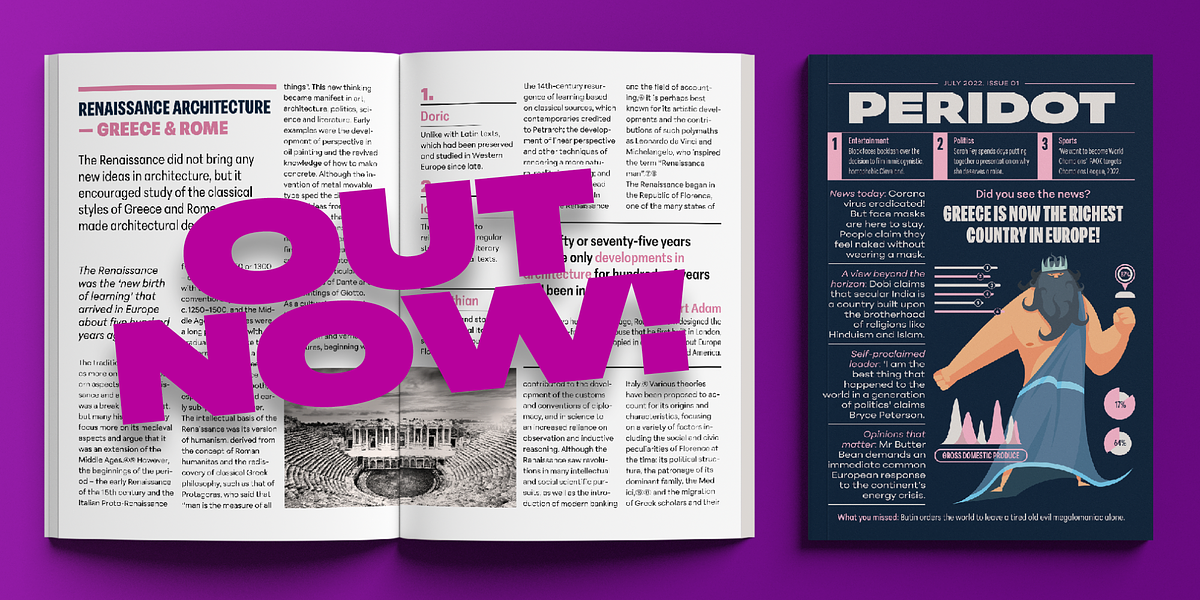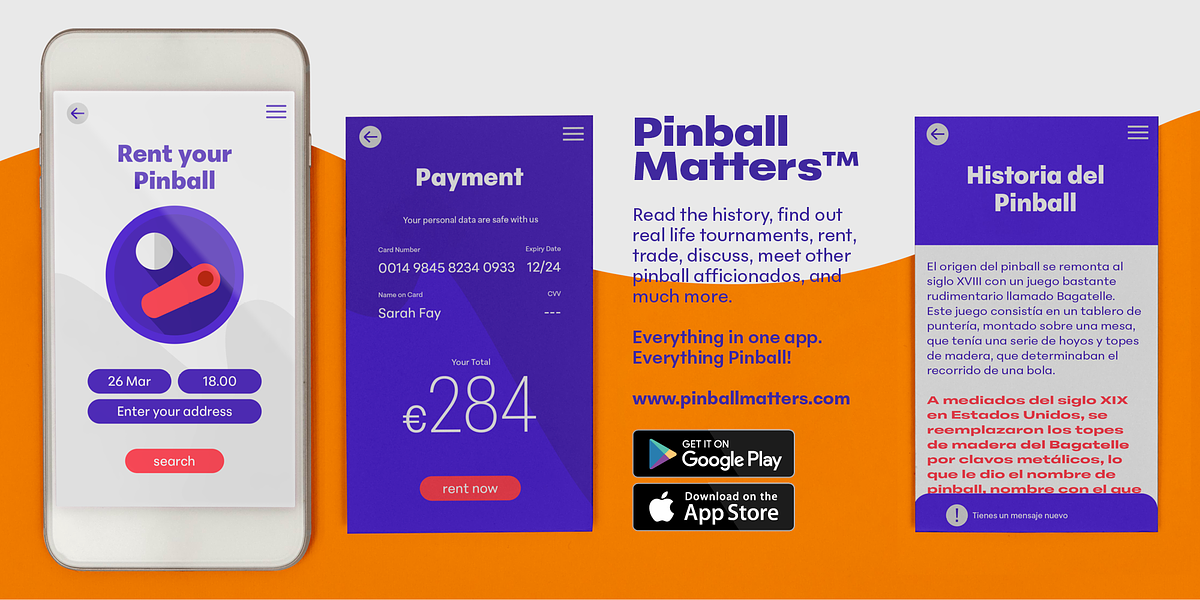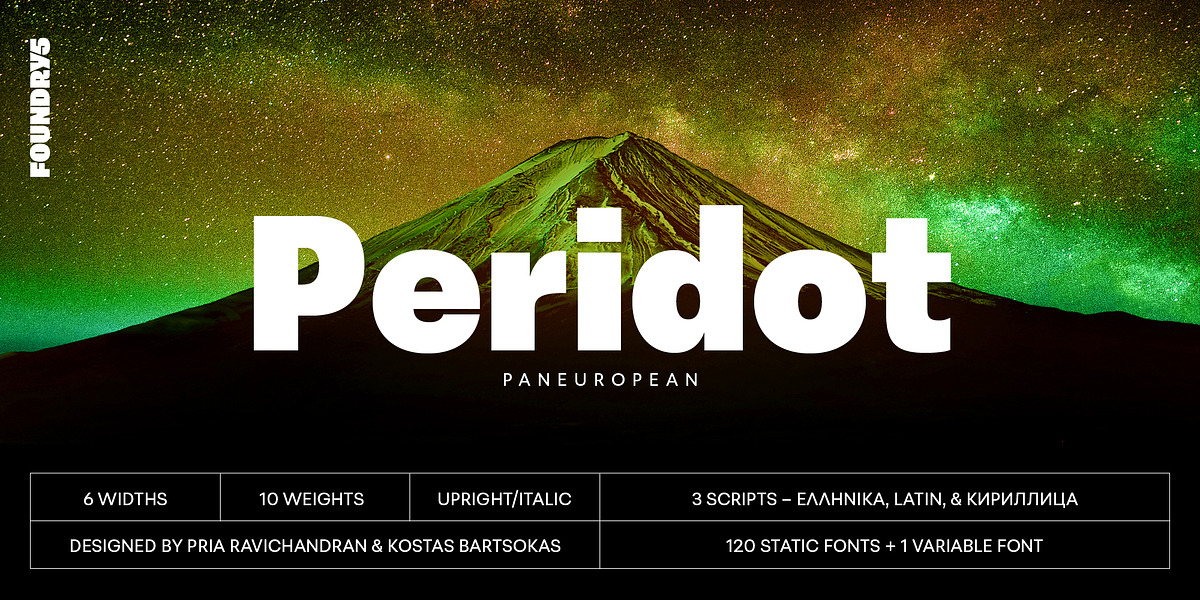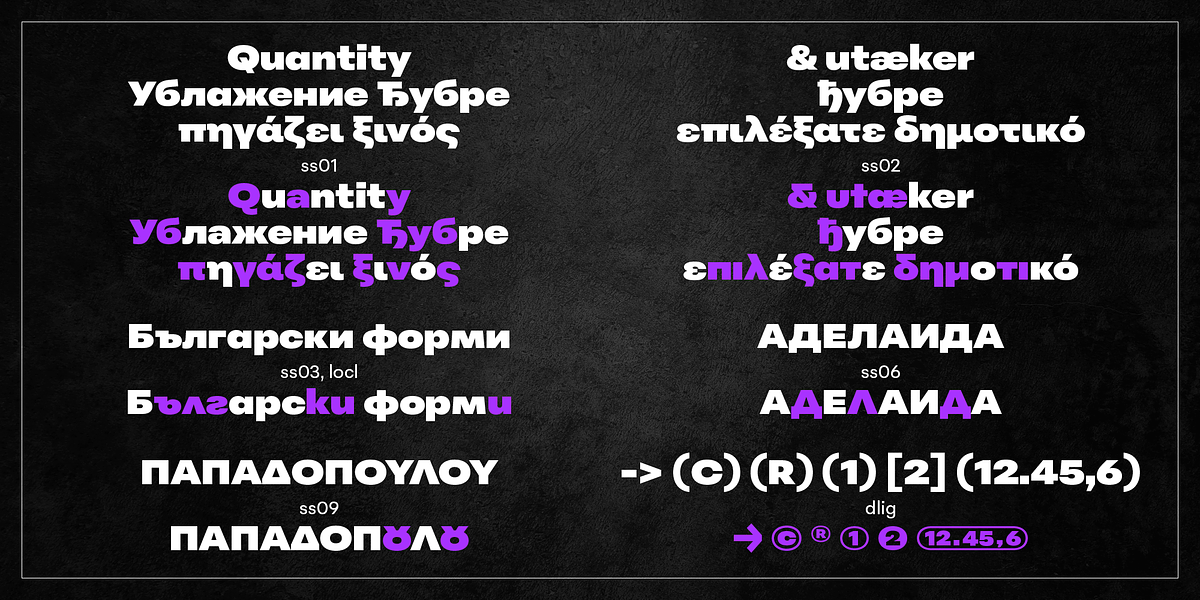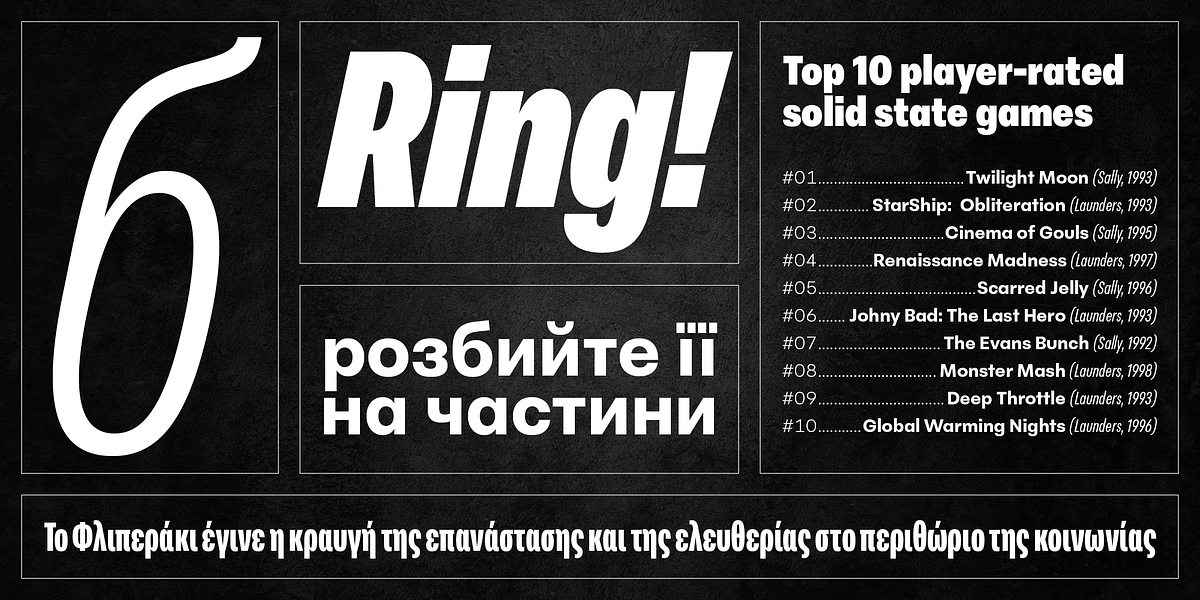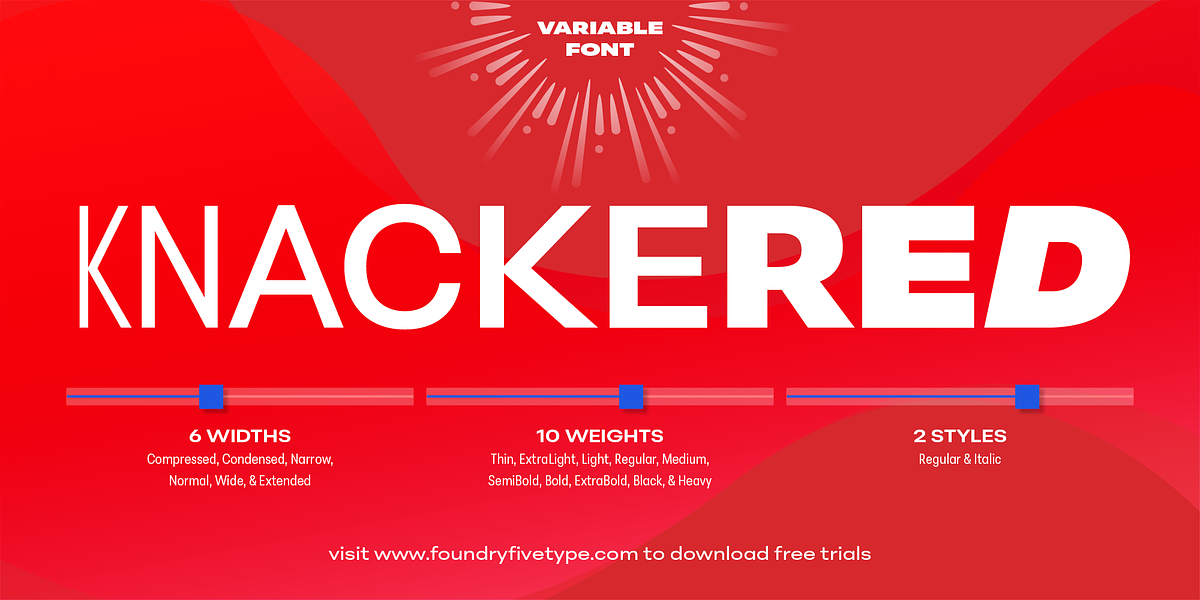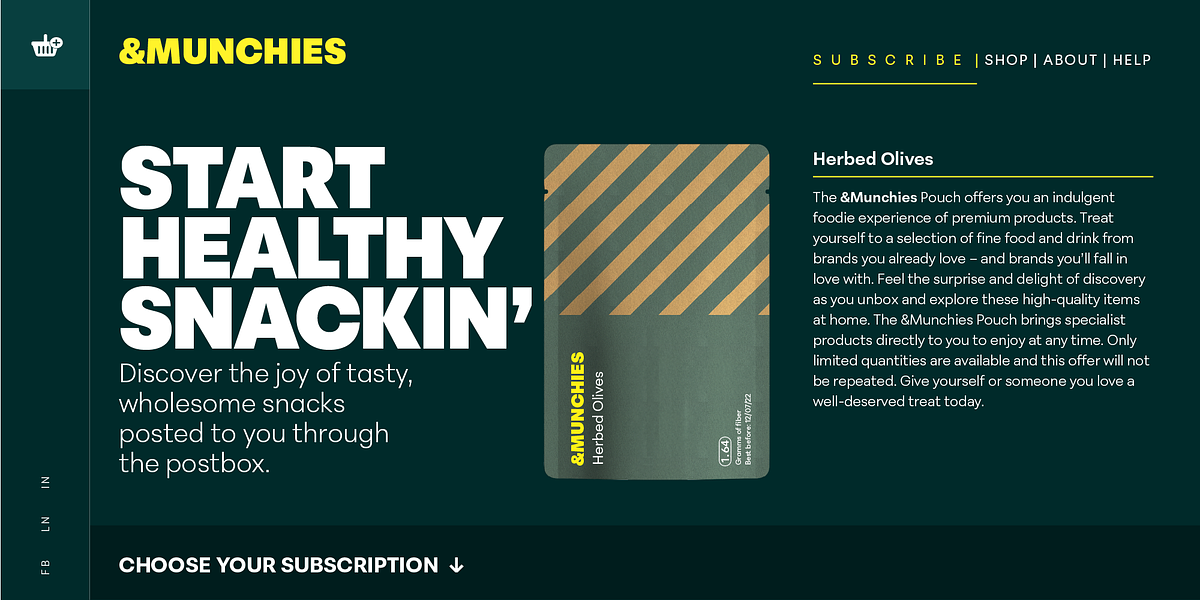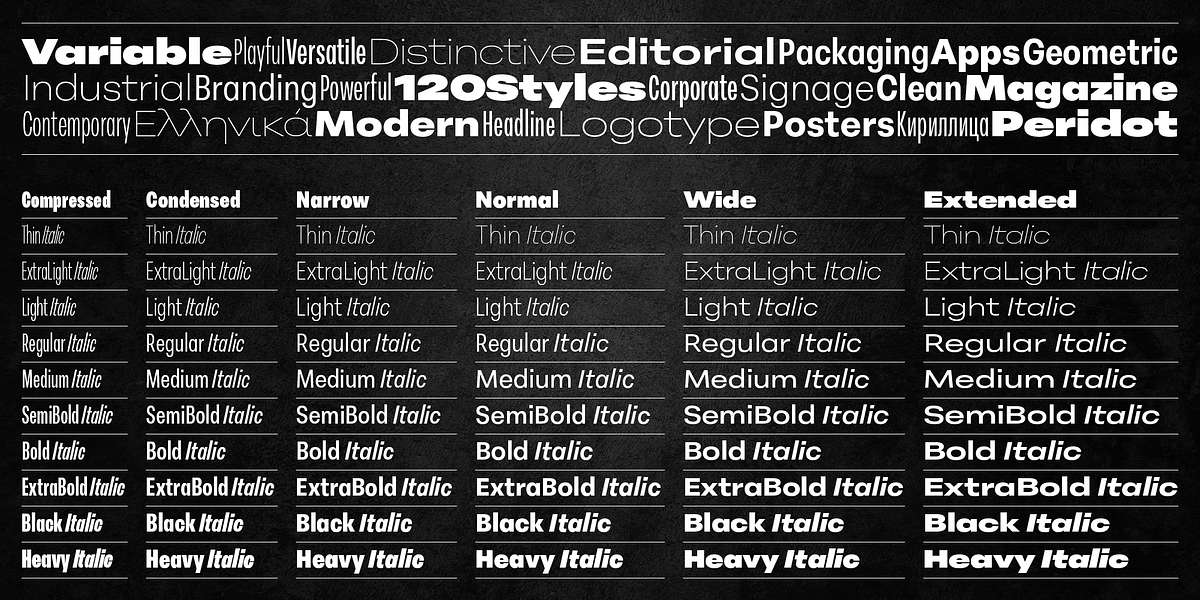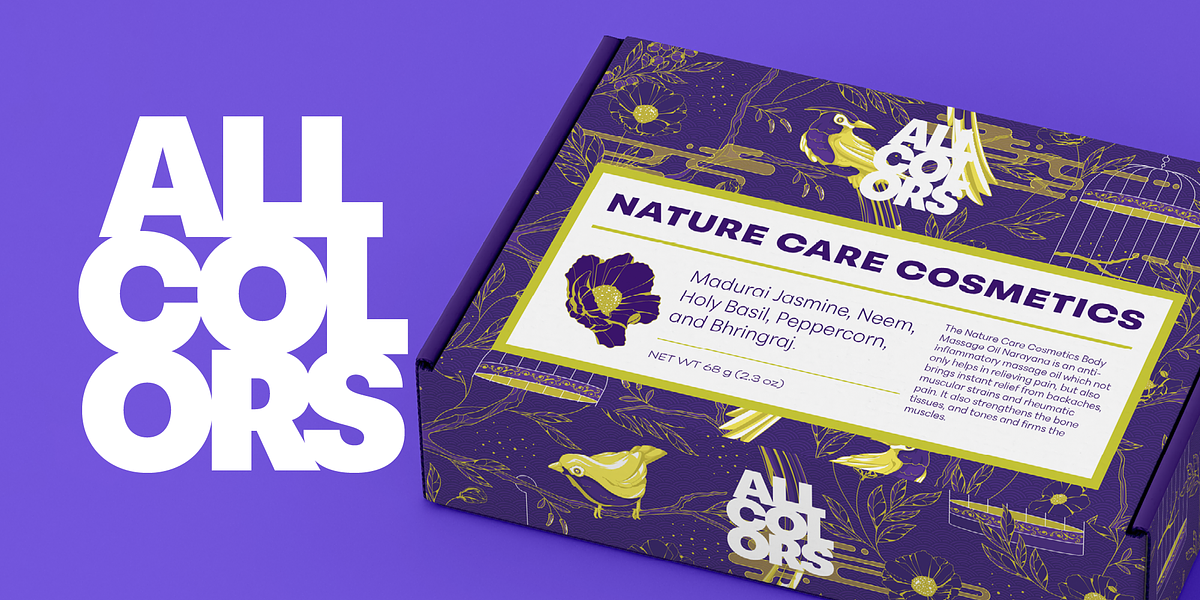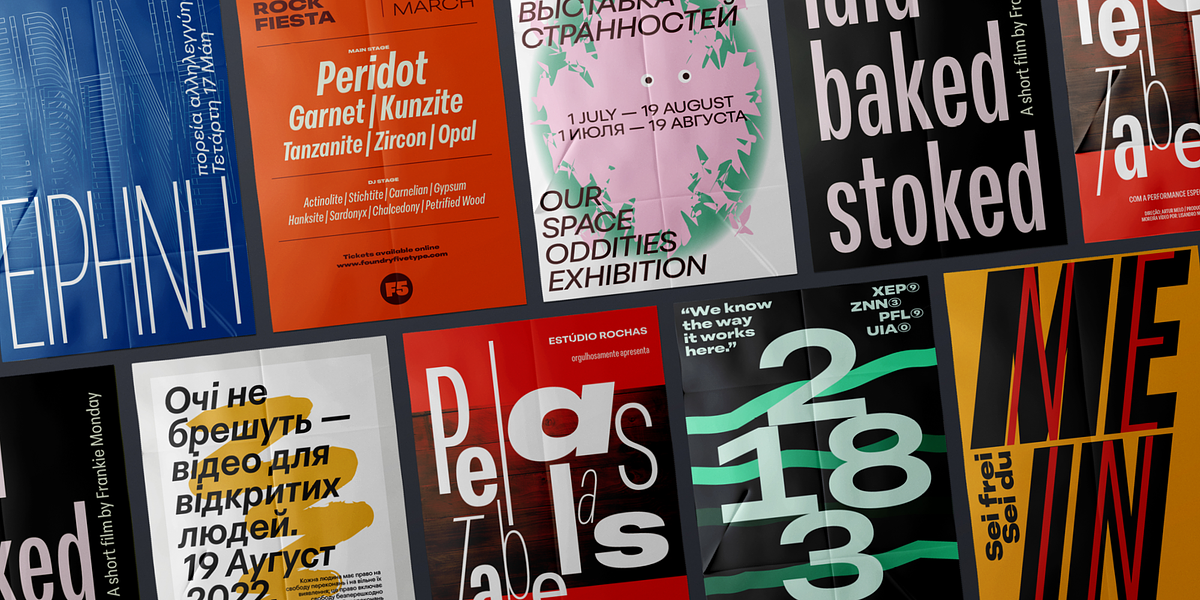
Peridot PE
Peridot is a geometric sans serif font family designed by Foundry5. It features 10 weights with matching italics and 6 widths, offering extensive typographic versatility. The font also includes a variable format for even greater customization. Peridot supports Cyrillic, Greek, and Latin alphabets, covering over 370 languages. Its comprehensive feature set includes localized variants, tabular numerals, currencies, fractions, discretionary ligatures, and more. Suitable for a wide range of applications from branding and display to editorial and web design.